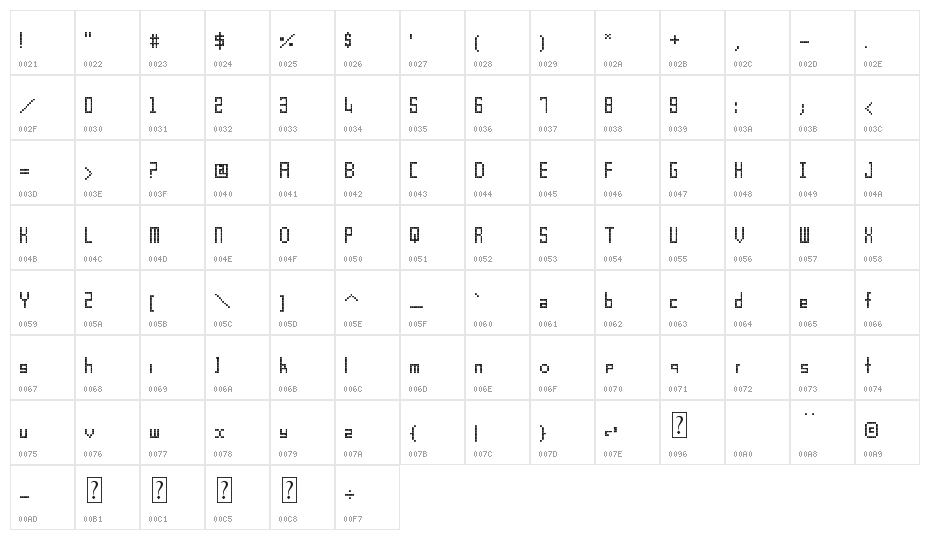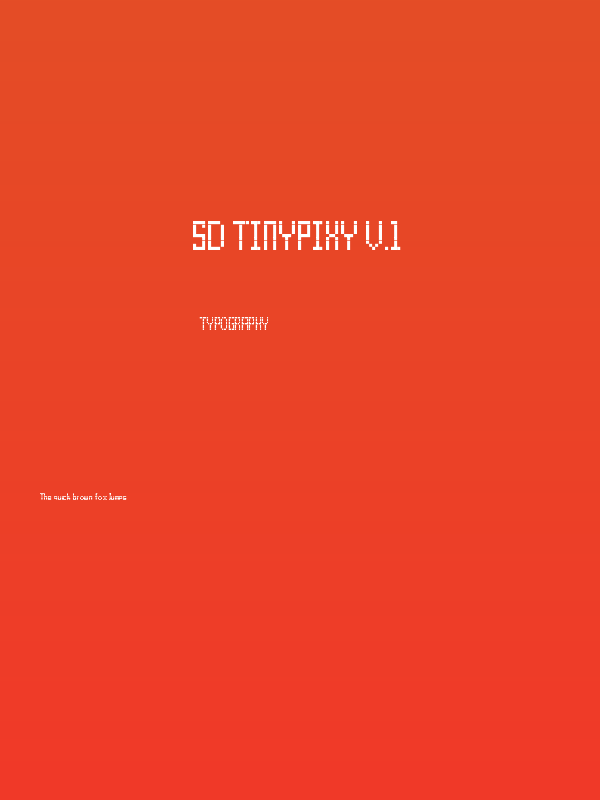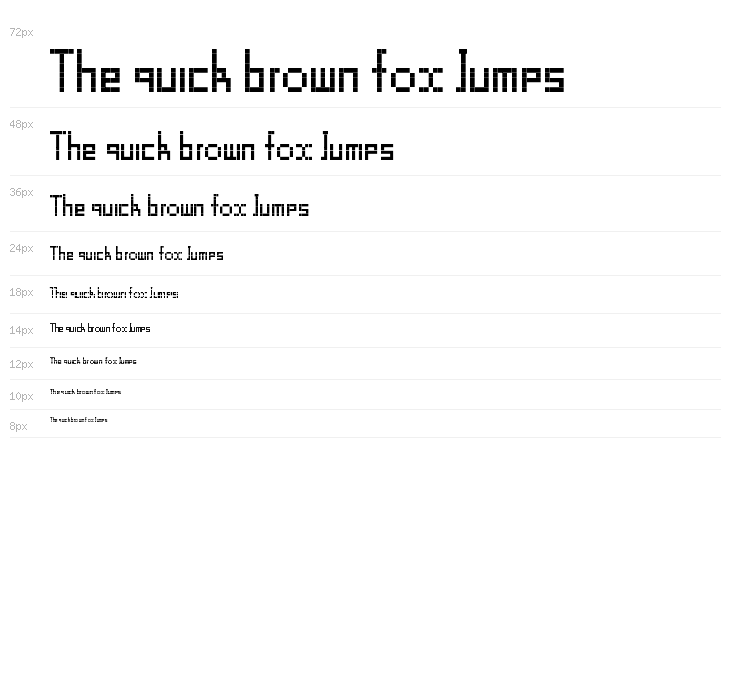
SD TinyPixy v.1 Font
SD TinyPixy v.1 Description
This font features a pixelated, blocky design reminiscent of early digital displays and retro video games. Each character is constructed with a uniform grid-like structure, giving it a distinctly digital and geometric appearance. The uppercase and lowercase letters maintain a consistent height, contributing to a monospaced feel, although the font is not strictly monospaced. The numerals and special characters follow the same pixelated style, ensuring visual consistency across all glyphs. The font's simplicity and clarity make it suitable for digital-themed projects, where a retro or tech-inspired aesthetic is desired.
| Overall Style | Retro, Digital |
| Use Case | Logos, Headlines, Digital displays |
| Proposed Projects | Ideal for retro video games, digital art, tech-themed posters, and pixel art projects. |